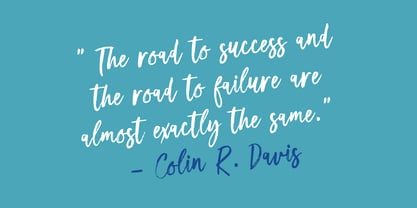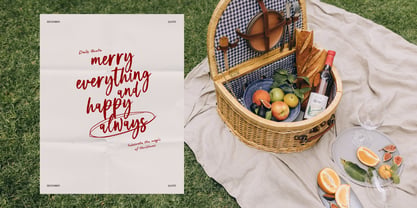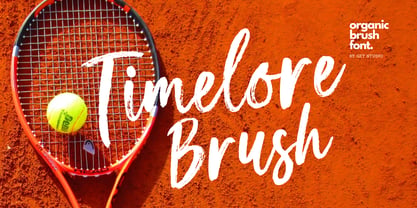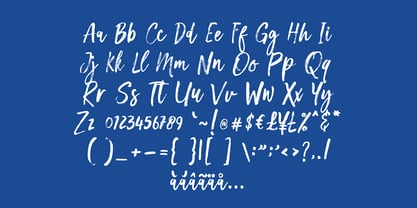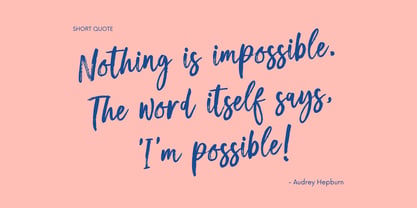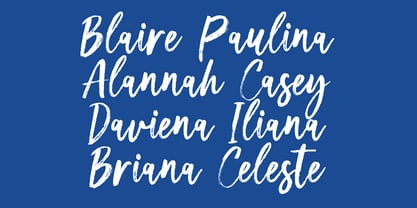
Timelore Brush
by Get Studio
The Timelore Brush Font Family was designed by Hermansyah and published by Get Studio. Timelore Brush contains 2 styles and family package options. More about this family
Timelore Brush is a captivating brush script font designed to infuse your projects with an air of elegance and charm. With a distinctive handwriting style, each character exudes a sense of fluidity and spontaneity, adding a personal touch to your designs.
The font boasts Opentype features, allowing for dynamic alternate characters that enhance its versatility and create a natural, organic flow.